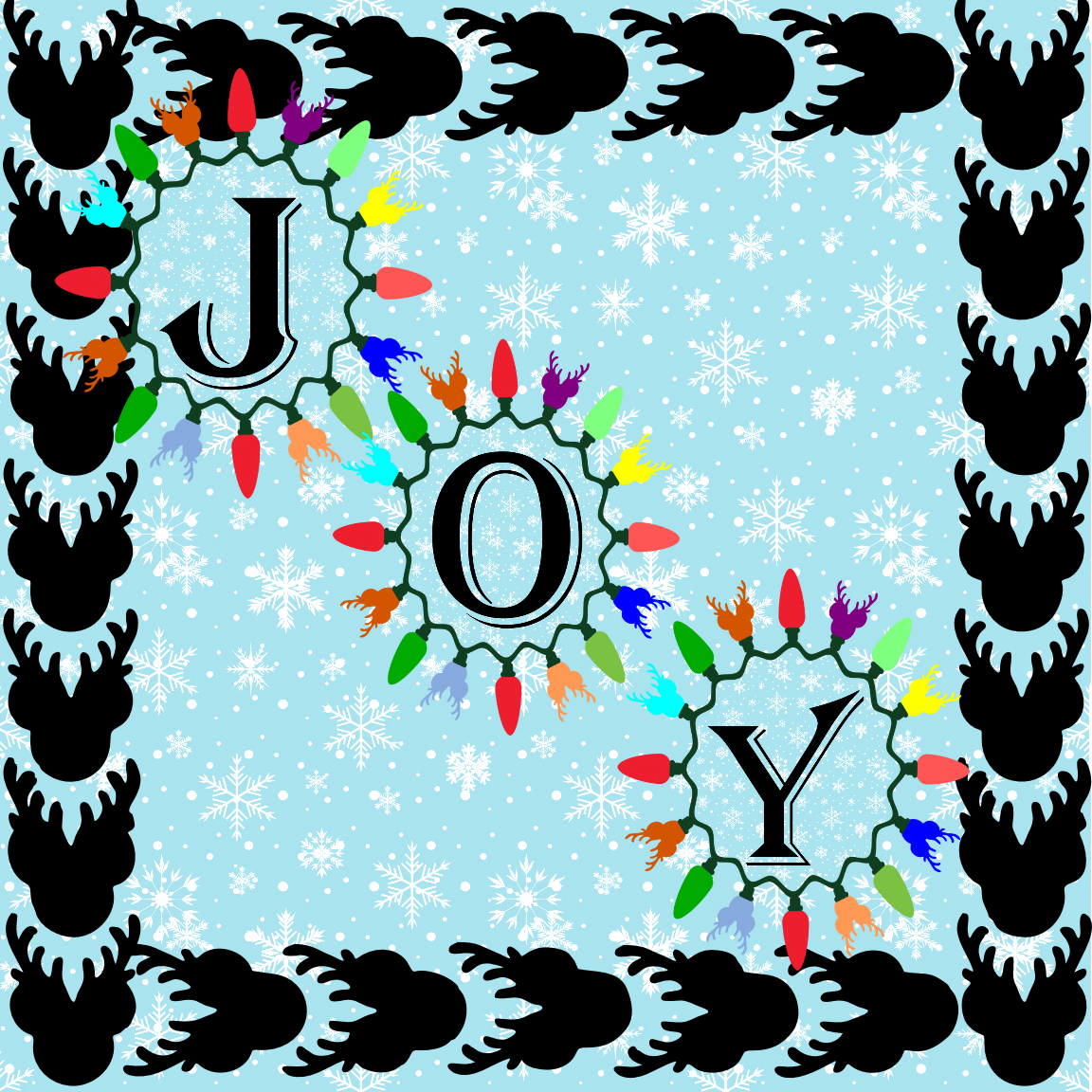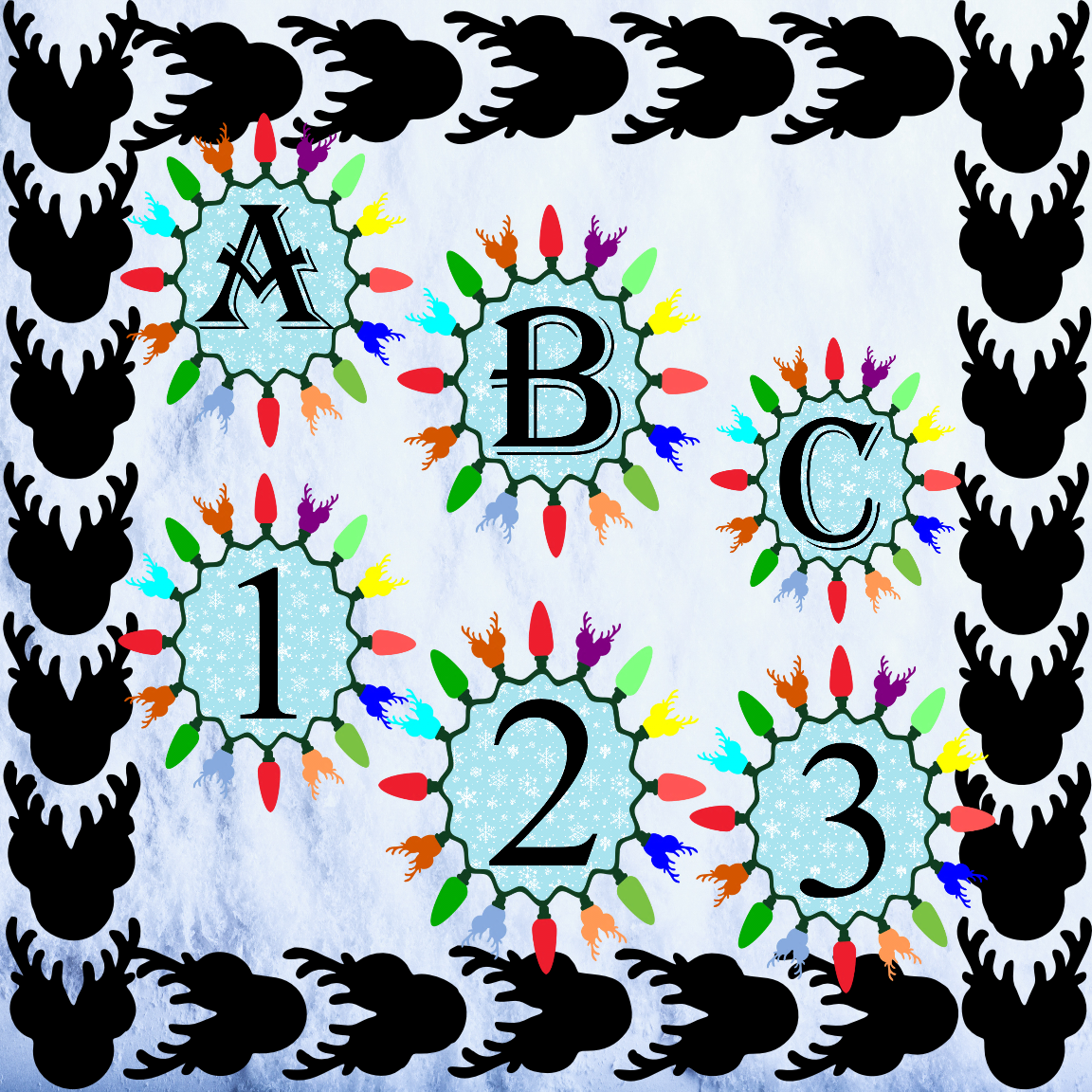
ABC and Numbers 15a-Digital ClipArt-Fonts-Art Clip-Lights-Snowflake-Gift Tag-Not
ABC and Numbers 15a-Digital ClipArt-Fonts-Art Clip-Snowflake-Gift Tag-Notebook-Holiday-Scrapbook-Banner-Background-Gift Card. The files you receive are in formats with transparent backgrounds. Clipart is great for creating invitations, birth announcements, baby showers, business cards, web designs, greeting cards, party printables, tags and so much more!